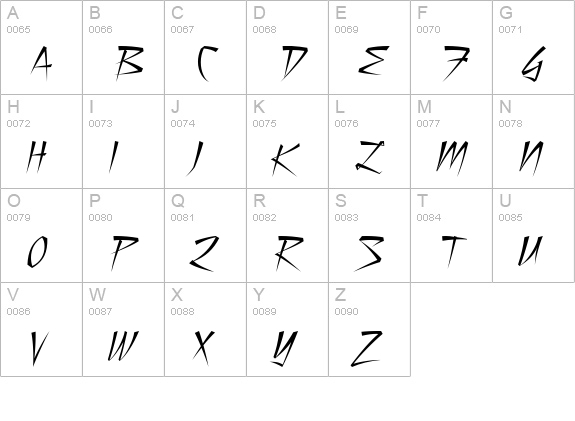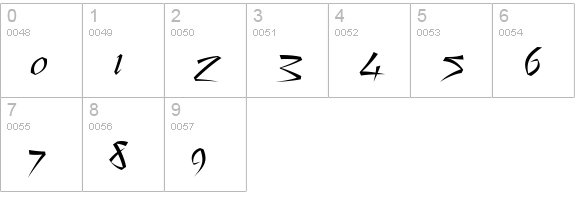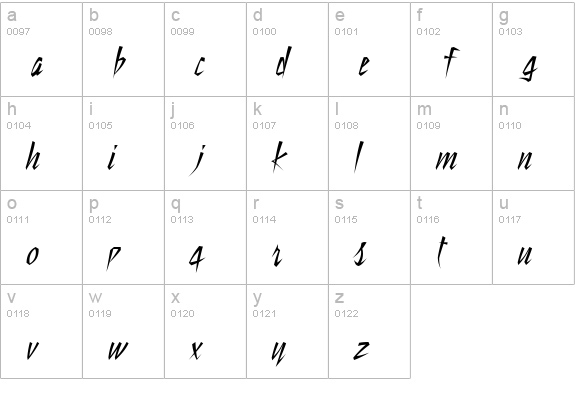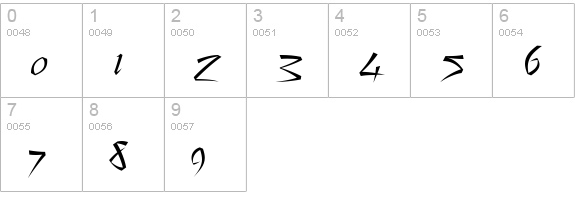
Still Time Font Details
Introducing Still Time font, a timeless and elegant typeface that exudes sophistication and charm. With its classic yet modern design, Still Time is perfect for adding a touch of refinement to any project. This versatile font is ideal for a wide range of applications, from branding and packaging to invitations and social media graphics. The beauty of Still Time font lies in its graceful curves and clean lines, which give it a sense of effortless grace and style. Whether you're looking to create a logo with a touch of class or design a wedding invitation that will leave a lasting impression, Still Time has you covered. Best of all, Still Time font is completely free to download at FontsMarket.com. So you can add this exquisite typeface to your font collection without breaking the bank. Don't miss out on the opportunity to elevate your designs with the timeless beauty of Still Time font. Download it today and let your creativity soar!